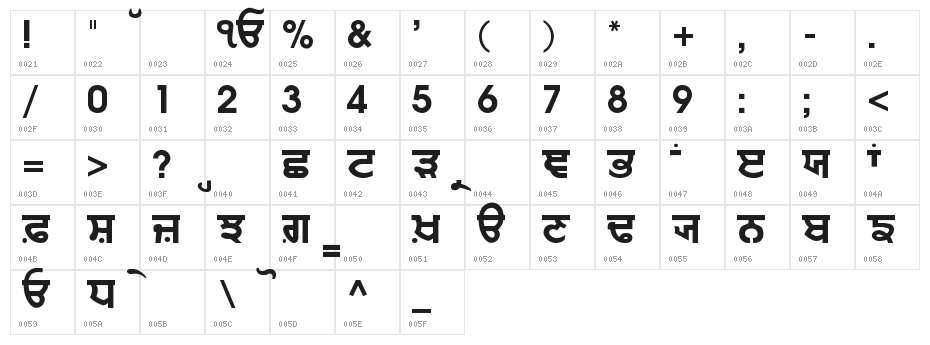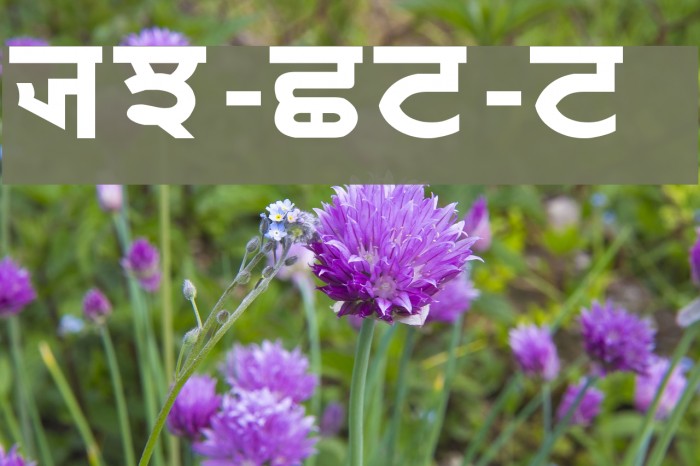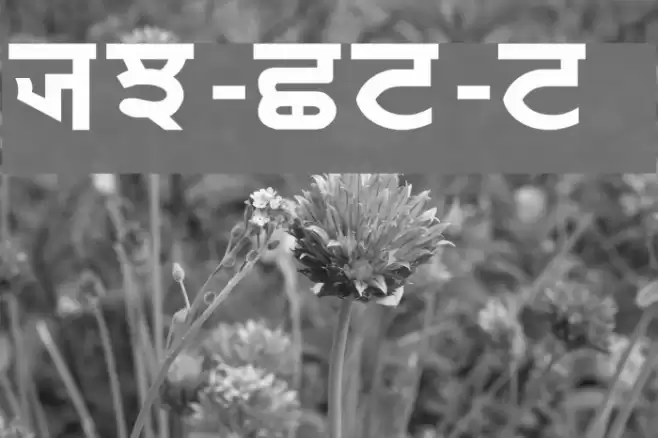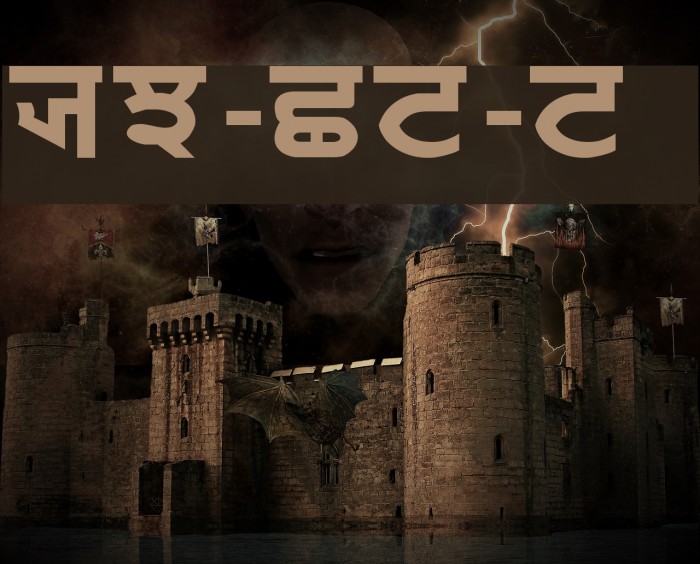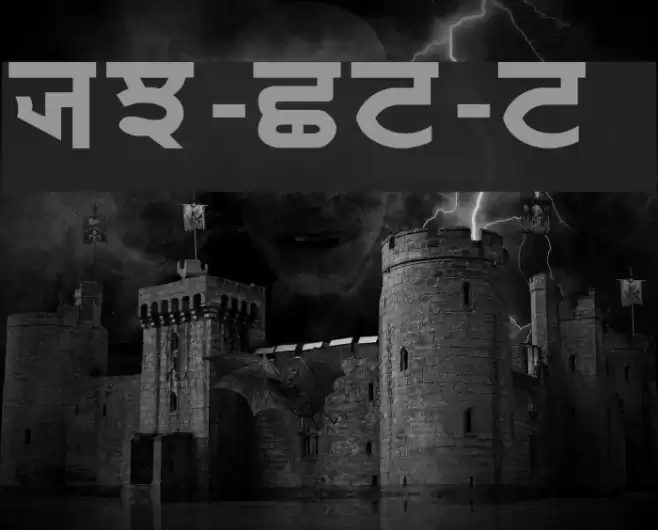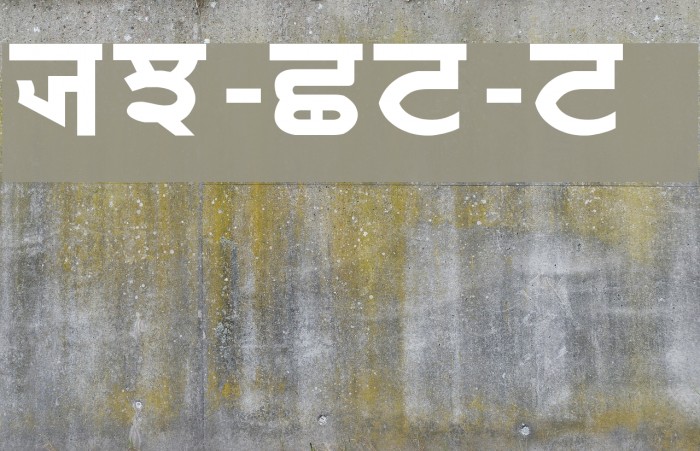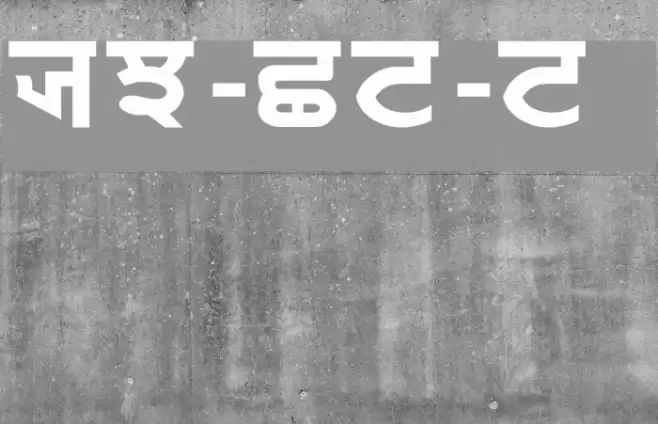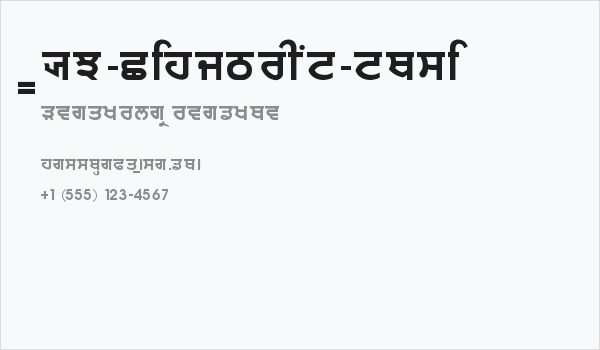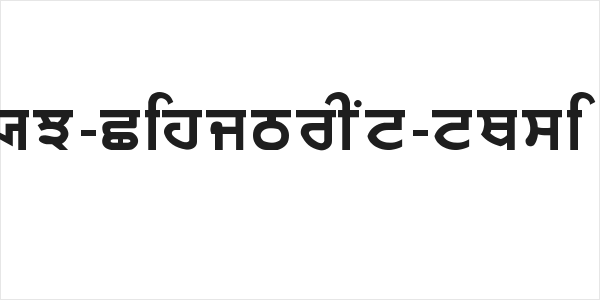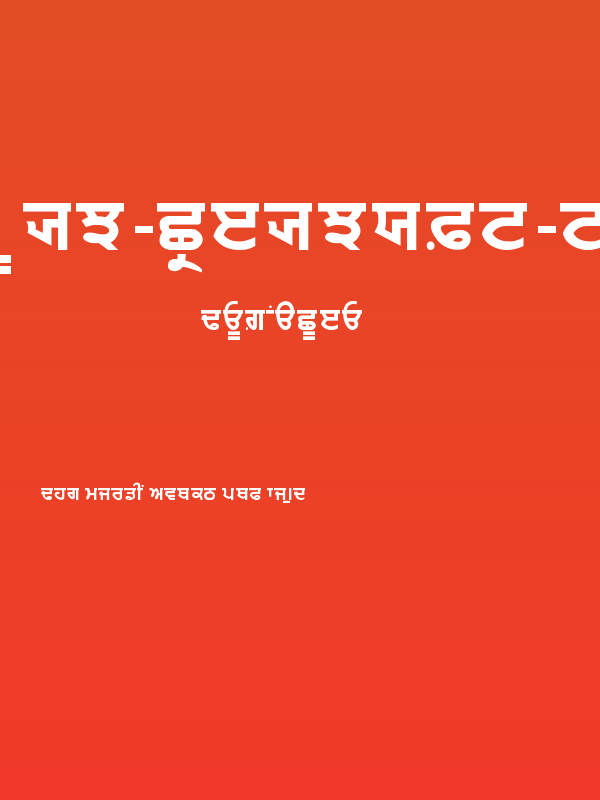
PUN-AdhunikB-Bold Font
PUN-AdhunikB-Bold Description
This font features a bold and modern design with strong, clean lines and a geometric structure. The characters are well-defined, with a consistent stroke weight that gives them a solid and impactful appearance. The numerals and special characters maintain the same boldness, ensuring uniformity across all elements. The font's style is both contemporary and versatile, making it suitable for a wide range of applications. Its clarity and readability are enhanced by the even spacing between characters, which prevents any visual clutter.
| Use Case | Headlines, Logos, Advertising |
| Proposed Projects | Ideal for branding, advertising, headlines, and digital media projects. |